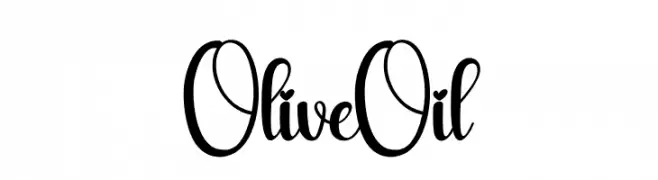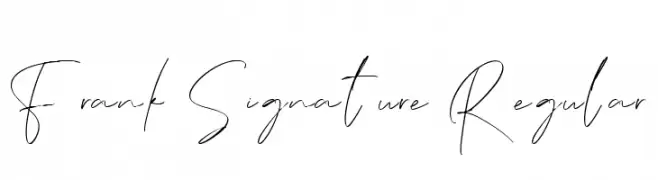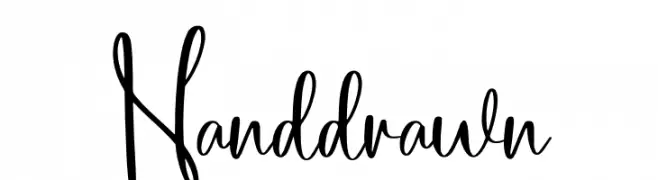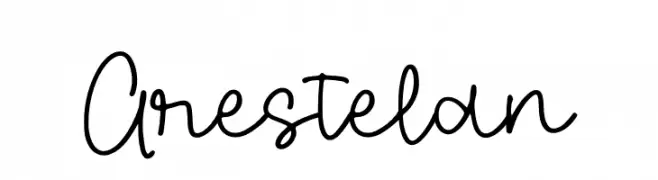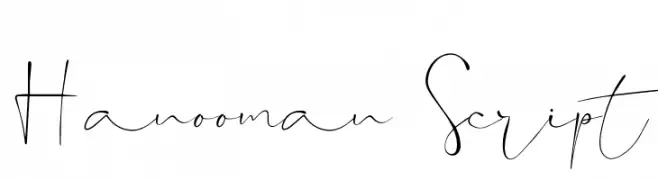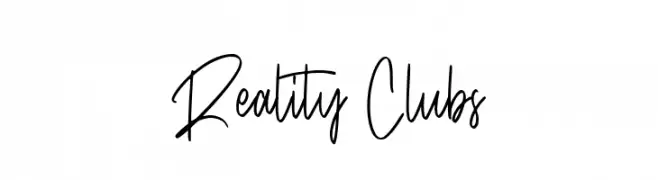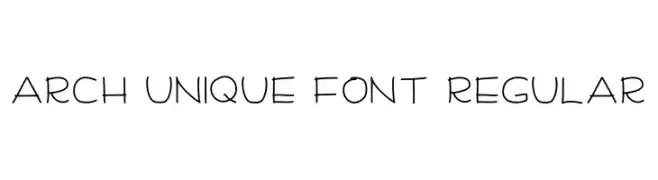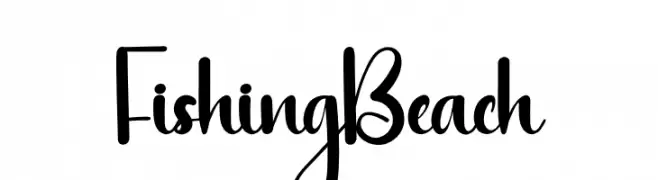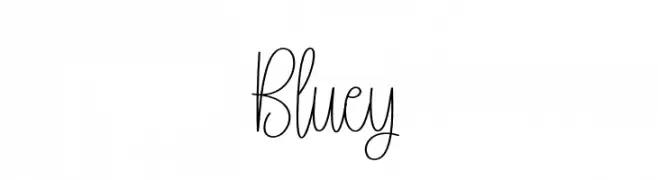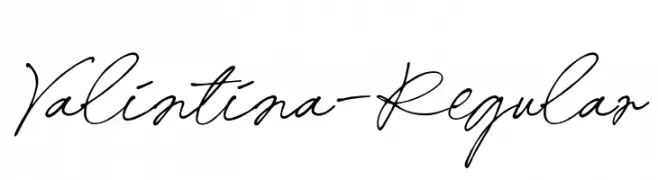
( Fonts by Scratchones )
Decorative script font with elegant, flowing lines.
( Fonts by RantautypeStudio )
Casual handwritten script font.
( Fonts by Maulana Creative )
Elegant handwritten font with a natural flow.
( Fonts by Etik Fatimah )
Casual handwritten script font.
( Fonts by Scratchones )
Playful hand-drawn script font.
( Fonts by share font )
Casual handwritten script font.
( Fonts by Maulana Creative )
Elegant cursive script with a handwritten feel.
( Fonts by Denny Sutanto )
Casual handwritten font with a playful style.
( Fonts by Integritype Studio )
Casual handwritten script font.
( Fonts by Satire Artwork )
Bold, artistic script font with a handwritten style.
( Fonts by Graphix Line Studio )
Playful and casual handwritten font.
( Fonts by Lettering Mom )
Elegant handwritten script font.
( Fonts by Maulana Creative )
Expressive handwritten font with a casual style.
( Fonts by Perspectype Studio )
Bold, handwritten script font with a playful style.
Playful handwritten font with smooth flow.
( Fonts by Steven Joss )
Playful handwritten font with a casual style.
( Fonts by NihStudio )
Casual, playful handwritten font.
( Fonts by fontpremium )
Elegant, flowing script font with a handwritten style.
( Fonts by Sabrina Teduh Alami )
Playful handwritten-style font.
( Fonts by scratchones )
Playful handwritten script with bohemian style.
( Fonts by Scratchones )
Playful, decorative script font with a handwritten style.
( Fonts by Andi Moz )
Playful handwritten font with tall, narrow letters.
( Fonts by Letterhend Studio )
Elegant cursive script with a handwritten style.
( Fonts by Mariyana )
Bold and expressive handwritten script font.
( Fonts by scratchones )
Playful handwritten font with a casual style.
( Fonts by Scratchones )
Playful handwritten font with a whimsical style.
( Fonts by Perspectype Studio )
Playful handwritten font with a casual style.
( Fonts by scratchones )
Playful, rounded handwritten font.
( Fonts by Typebae Foundry )
Elegant handwritten script font.
( Fonts by Scratchones )
Handwritten cursive script font.
( Fonts by Farid Rahman )
Casual handwritten script font.
( Fonts by Sanifla )
Casual handwritten font with playful style.
( Fonts by MJType )
Playful handwritten font with rounded edges.
( Fonts by Dm Letter Studio )
Playful and bold handwritten font.
( Fonts by BlackFridayFont FMF )
Expressive handwritten script font.